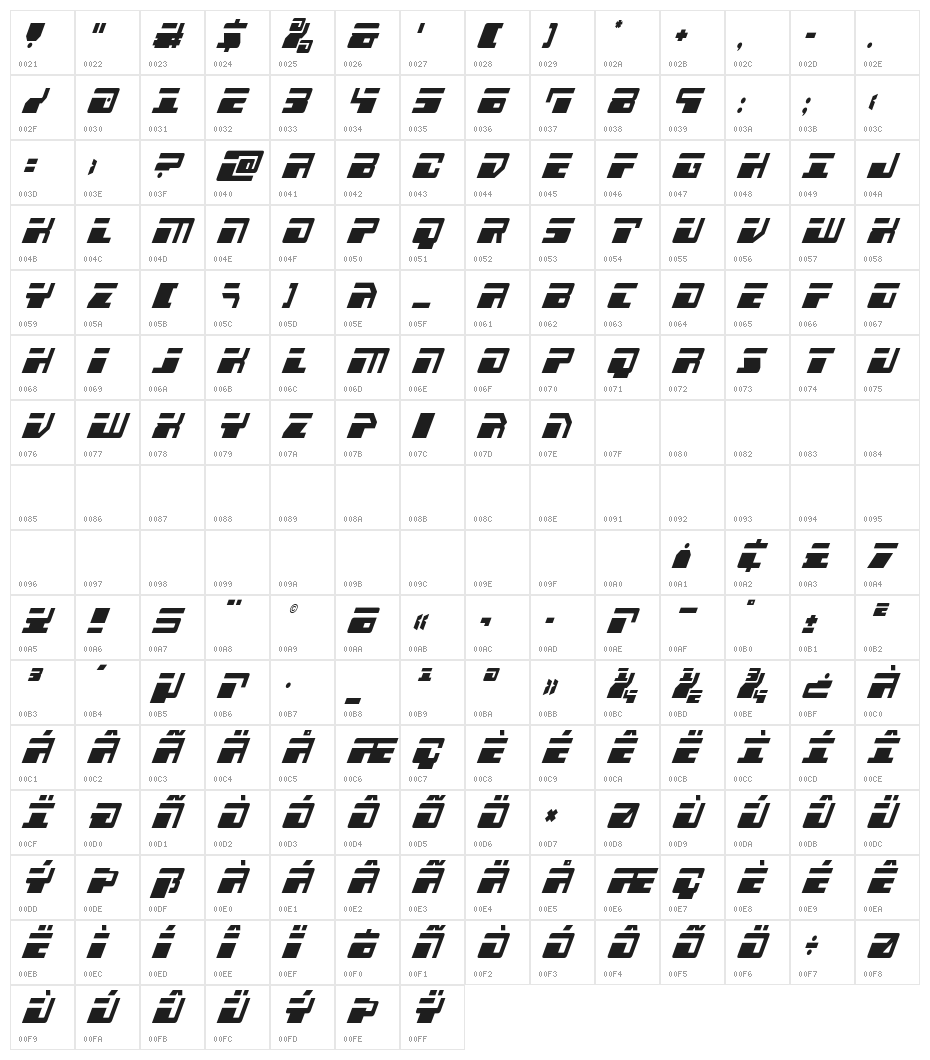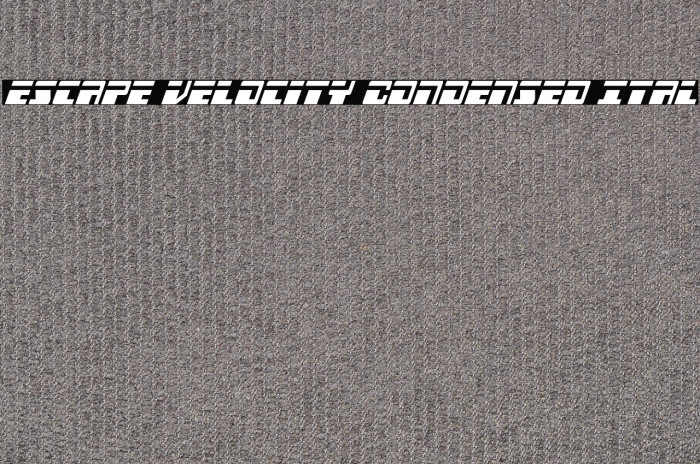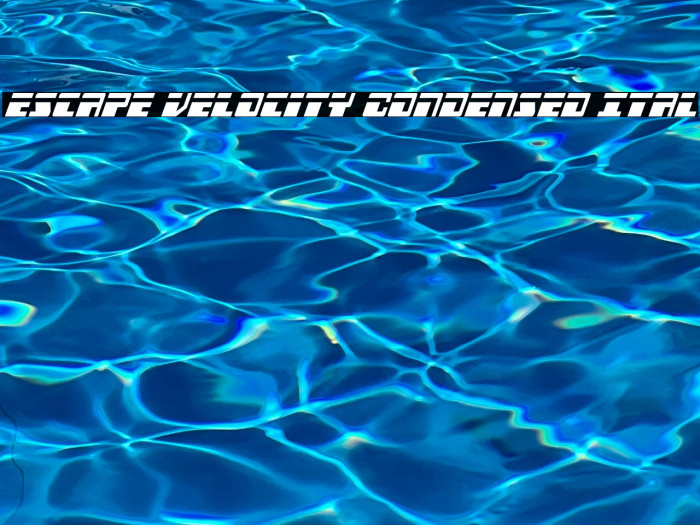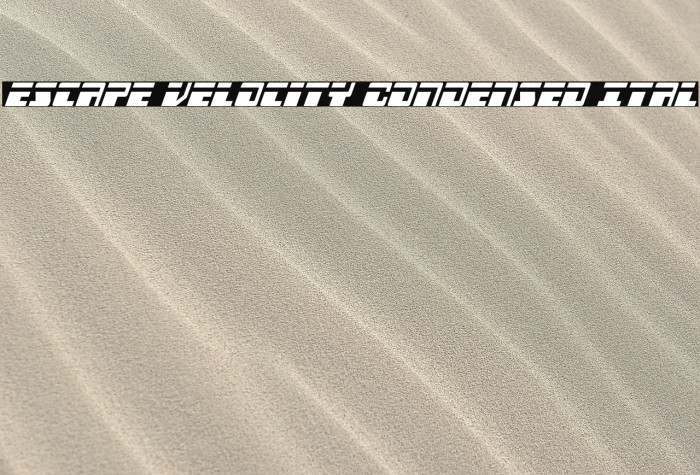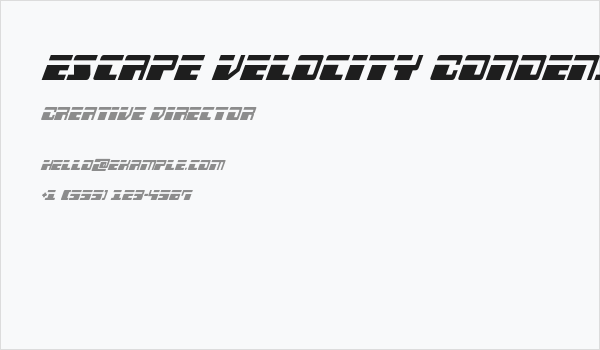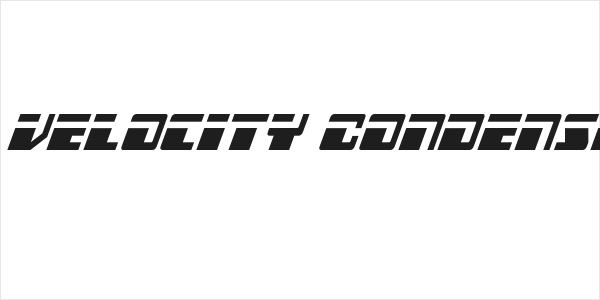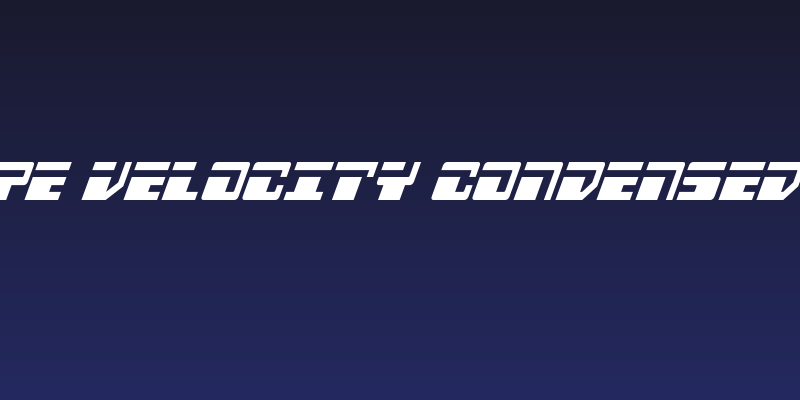
Escape Velocity Condensed Ital Font
Escape Velocity Condensed Ital Description
This font features a bold, futuristic design with a strong emphasis on angular and geometric shapes. The characters are condensed and italicized, giving a sense of speed and motion. The uppercase and lowercase letters maintain a consistent style, with sharp edges and a dynamic slant. Numbers and special characters follow the same design principles, ensuring uniformity across all glyphs. The font's unique style makes it stand out, ideal for projects that require a modern and tech-savvy appearance.